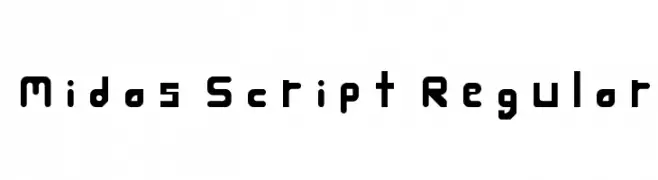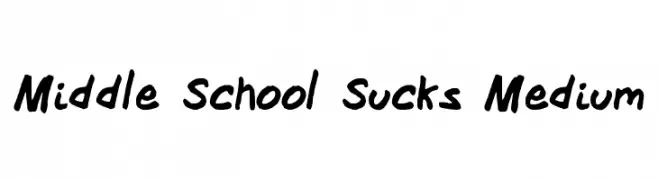
A whimsical, decorative font with a playful, hand-drawn style.
Bold, geometric font with a futuristic, sci-fi aesthetic.
A bold, italicized font with sharp angles and a dynamic presence.
( Fonts by The League of Moveable Type )
A bold, geometric font with strong, impactful letterforms.
A bold, geometric font with a modern and structured design.
A bold, geometric outline font with a modern, tech-inspired style.
( Fonts by junkohanhero )
A bold, distressed font with a ransom-note style and high contrast.
An elegant, fantasy-inspired font with sharp serifs and flowing curves.
( Fonts by Damien Gosset )
A bold, geometric font with a retro 1970s vibe, featuring blocky characters and rounded edges.
A bold, geometric font with a digital, pixelated style.
A bold, angular, and italicized font with a futuristic and dynamic style.
( Fonts by Asep Rendi )
A bold, playful font with dynamic curves and angles.
( Fonts by Khurasan )
A bold, hand-drawn font with an expressive, brush-like style.
( Fonts by Khurasan™ )
A playful, handwritten font with smooth, rounded edges and a friendly appearance.
A modern, futuristic font with rounded, geometric shapes and consistent line thickness.
( Fonts by Calligraphy Fonts )
An elegant, cursive font with fluid, interconnected letters and a sophisticated style.
( Fonts by MJType )
A playful, bold handwritten font with rounded, casual letterforms.
( Fonts by Storytype Studio )
An elegant script font with fluid, interconnected strokes and a calligraphic style.
A bold, angular serif font with a modern yet classic appeal.
Bold, slanted, geometric sans-serif with a futuristic look.
( Fonts by PutraCetol Studio )
A decorative, spiderweb-themed display font with hand-drawn, irregular strokes.
( Fonts by keithzo )
A bold, quirky serif font with a spooky, playful vibe.
( Fonts by Letterative Studio )
Loose, tall handwritten script with a playful and informal style.
( Fonts by Perspectype Studio )
Tall, narrow handwritten font with playful, irregular strokes.
( Fonts by Typography in Decay )
A bold, gothic-inspired font with sharp, angular edges and a tribal aesthetic.
( Fonts by Blue Vinyl - Jess Latham - www.bvfonts.com )
A retro collection of bold, geometric shapes and playful motifs inspired by 1960s design.
( Fonts by Daniel Midgley )
A clean and modern sans-serif font with balanced spacing and consistent stroke width.
( Fonts by Daniel Midgley )
A bold, italicized sans-serif font with a modern and dynamic style.
( Fonts by Daniel Midgley )
A bold, italicized sans-serif font with a modern and dynamic style.
( Fonts by Daniel Midgley )
A bold, modern sans-serif font with geometric shapes and even spacing.
( Fonts by Daniel Midgley )
A bold, modern sans-serif font with clean, geometric lines.